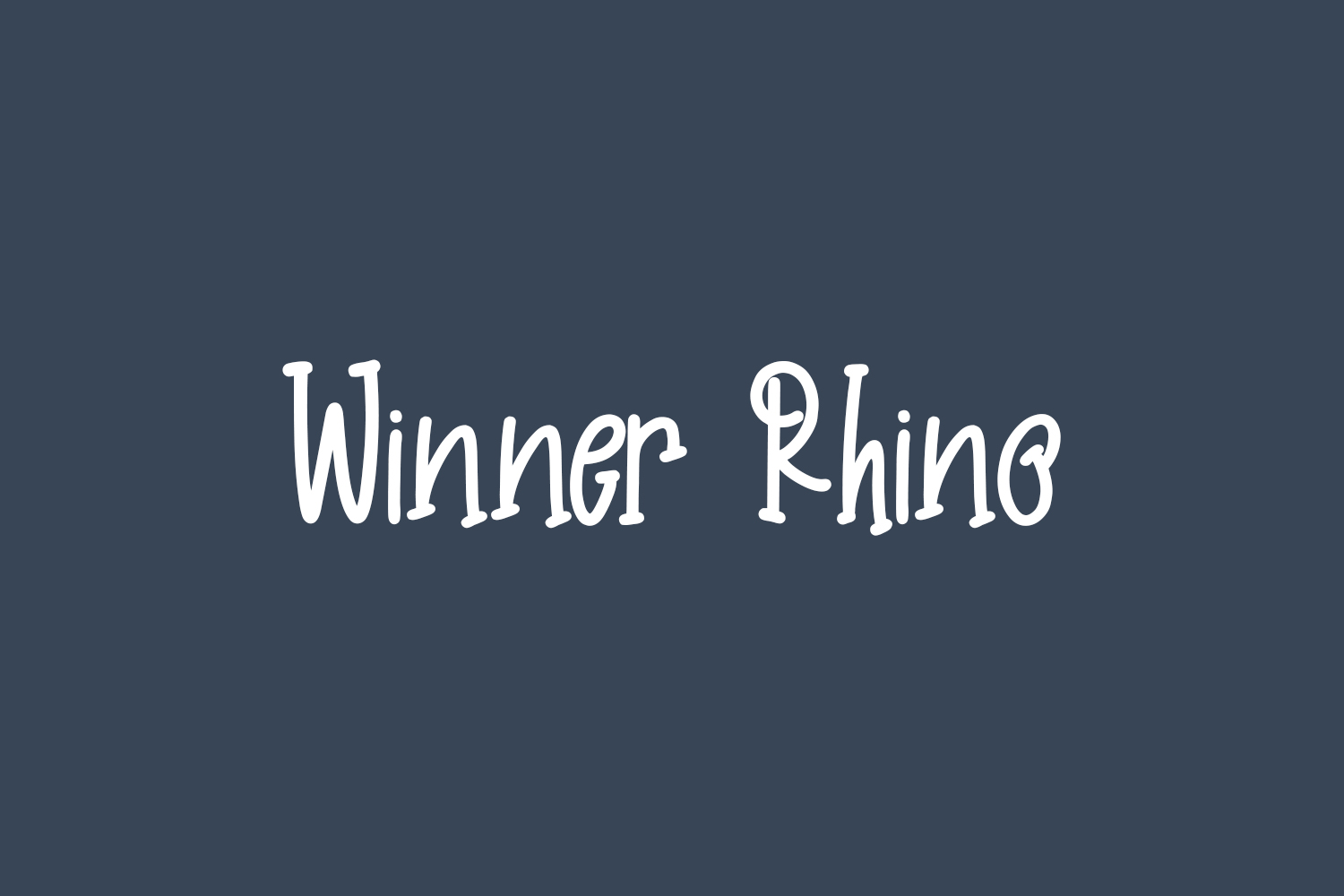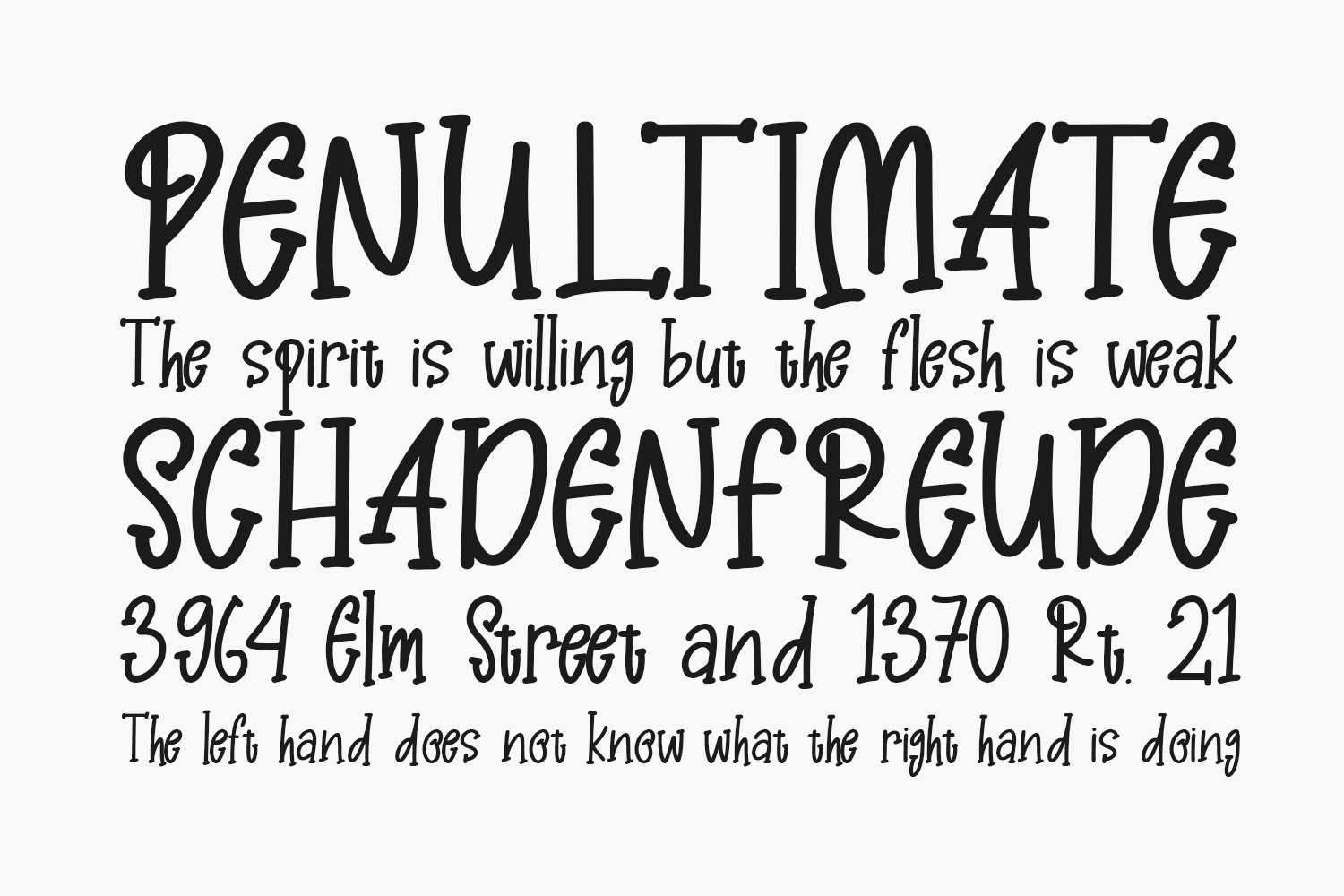
Winner Rhino Free Font is a playful and childish handwritten font. Whimsical and a bit quirky, this font will brighten up each of your designs. Add it confidently to your projects, and you will love the results. Winner Rhino Free Font was designed by Nomlimofont and is free for personal use only. Please purchase the full version for commercial use.